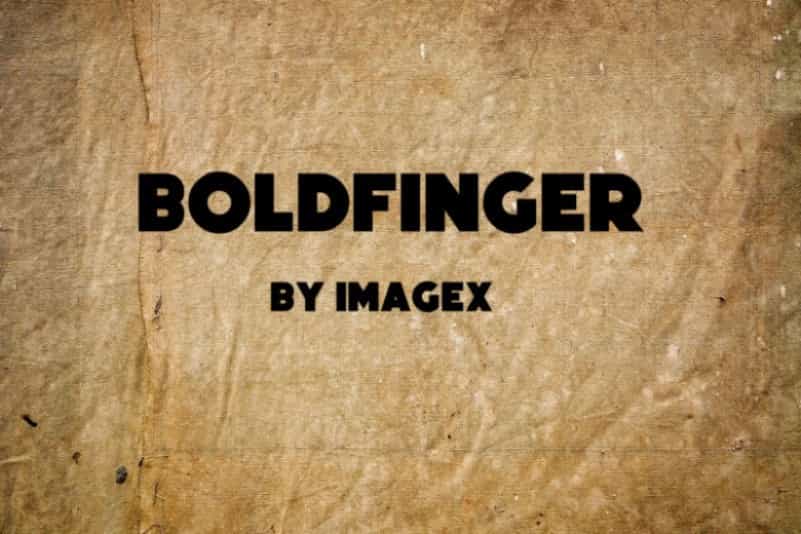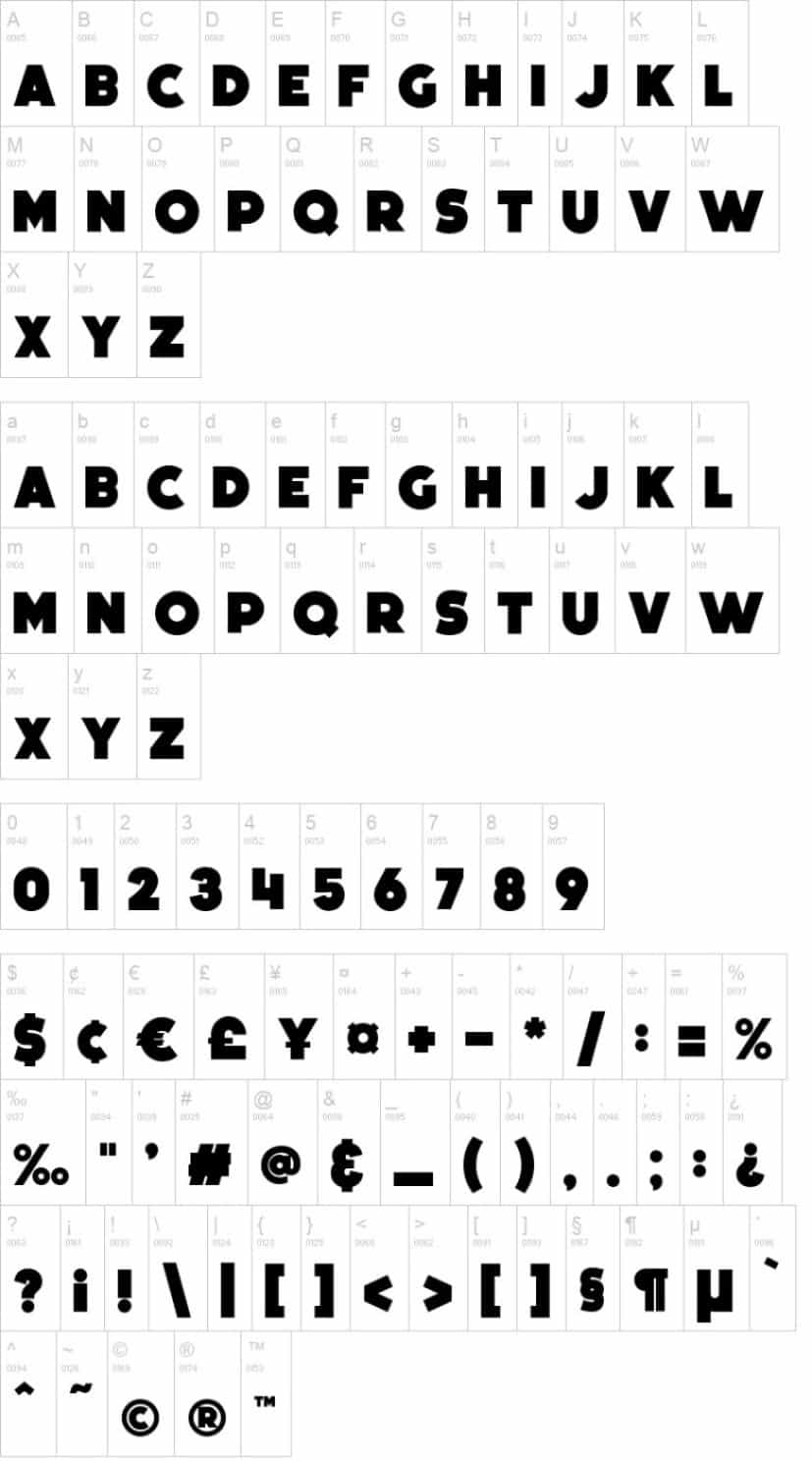
Boldfinger is an imagex sans serif typeface designed with geometric forms for easy reading and its unique industrial appearance is reminiscent of street signs – making this font perfect for logos, packages and titles designs.